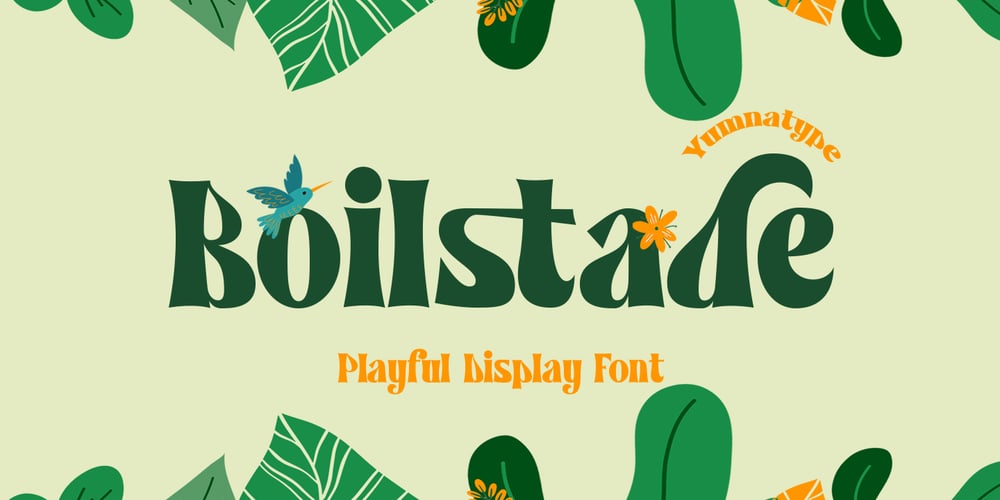
Boilstade
Boilstade font
Boilstade Font Family was designed by Donis Miftahudin and published by Yumna Type. Boilstade contains 1 styles and family package options. Boilstade is a lively display font designed to bring a playful energy to your projects. Made in quite thick weight, Boilstade ensures your text stands out with a bold and captivating presence.The font’s playful style is highlighted by its rounded shapes, giving each character a friendly feel. One of the defining characteristics of Boilstade is its quite visible contrast, which adds depth and dimension to your words. Adding to its unique charm, Boilstade design in unequal outlines, giving each letter a slightly irregular and handcrafted look. In addition, enjoy the features here.Features: Alternates Ligatures Multilingual Supports PUA Encoded Numerals and Punctuations Boilstade fits in headlines, logos, posters, flyers, branding materials, print media, editorial layouts, and many more designs. Find out more ways to use this font by taking a look at the font preview.Thanks for purchasing our fonts. Hopefully, you have a great time using our font. Feel free to contact us anytime for further information or when you have trouble with the font. Thanks a lot and happy designing.